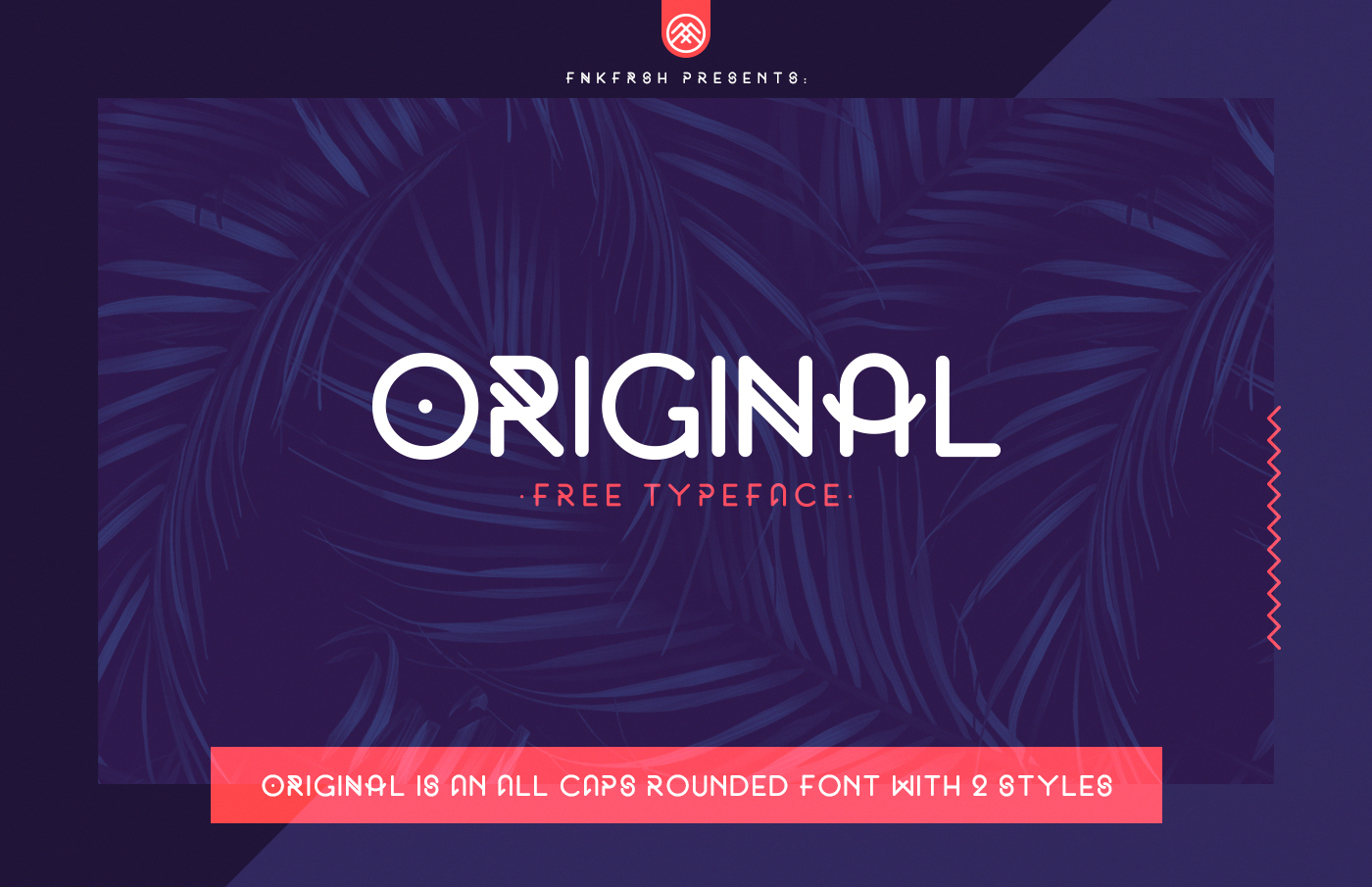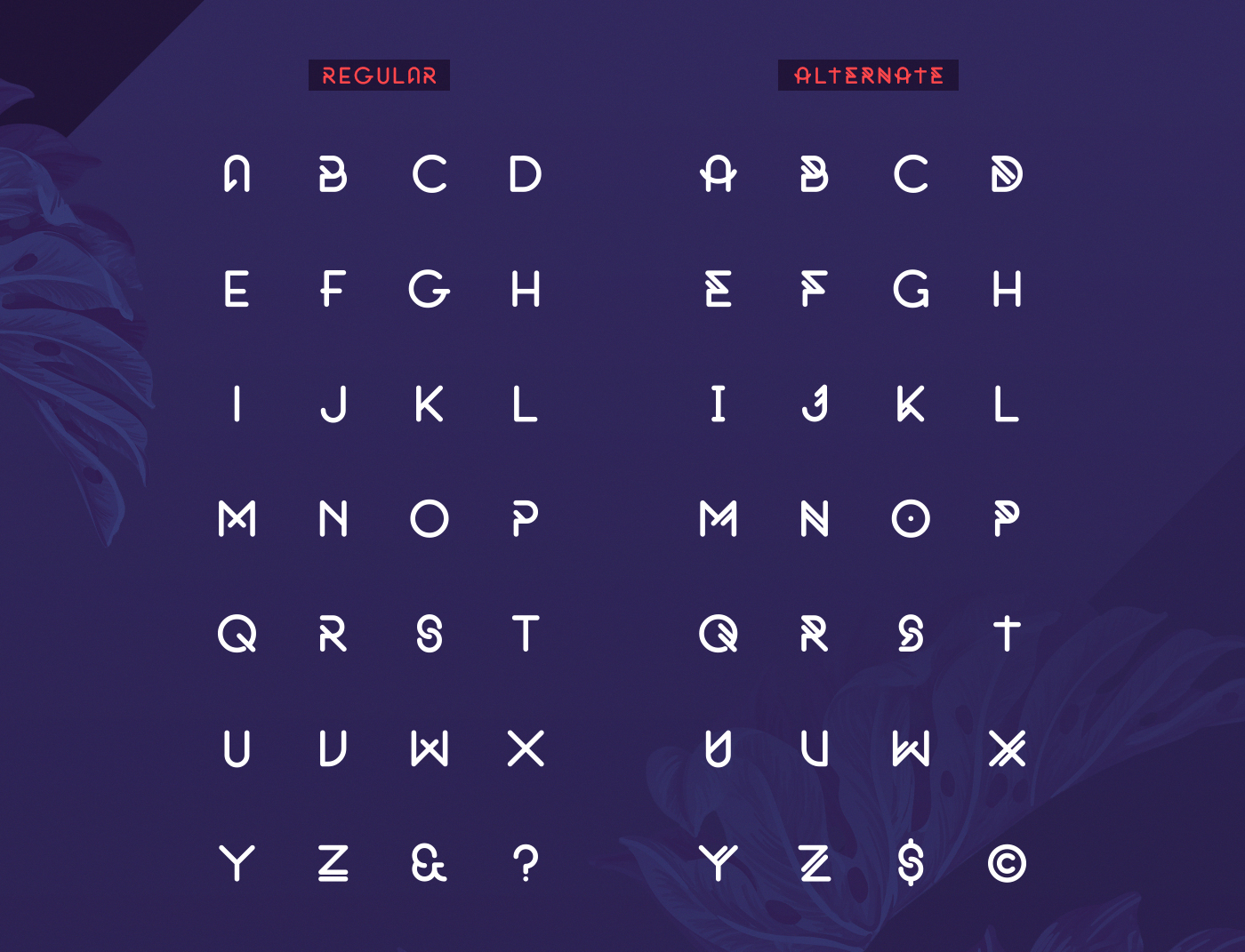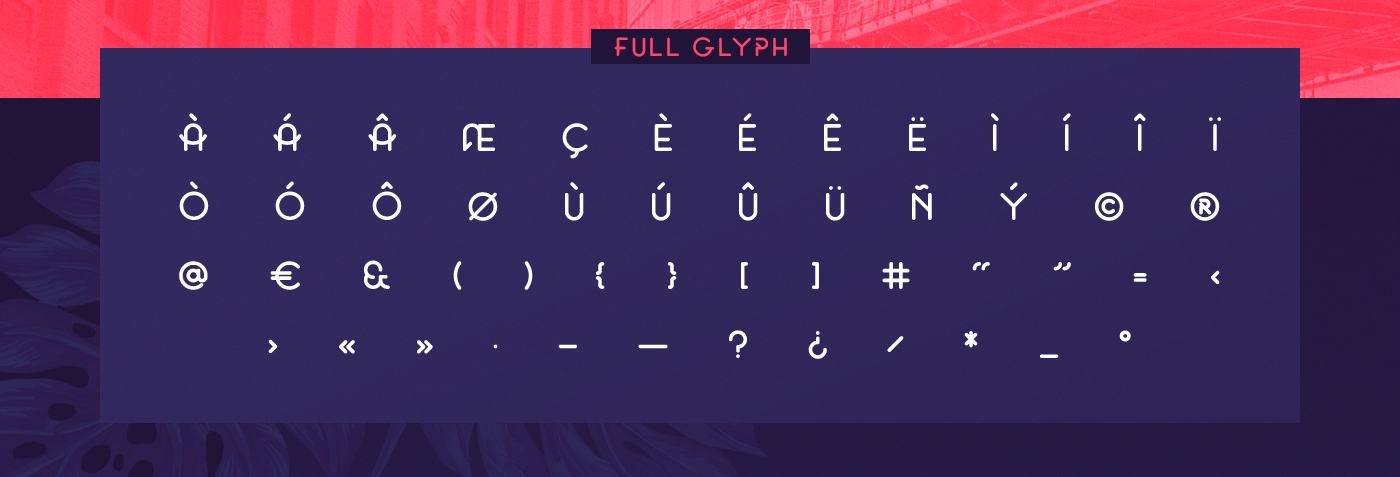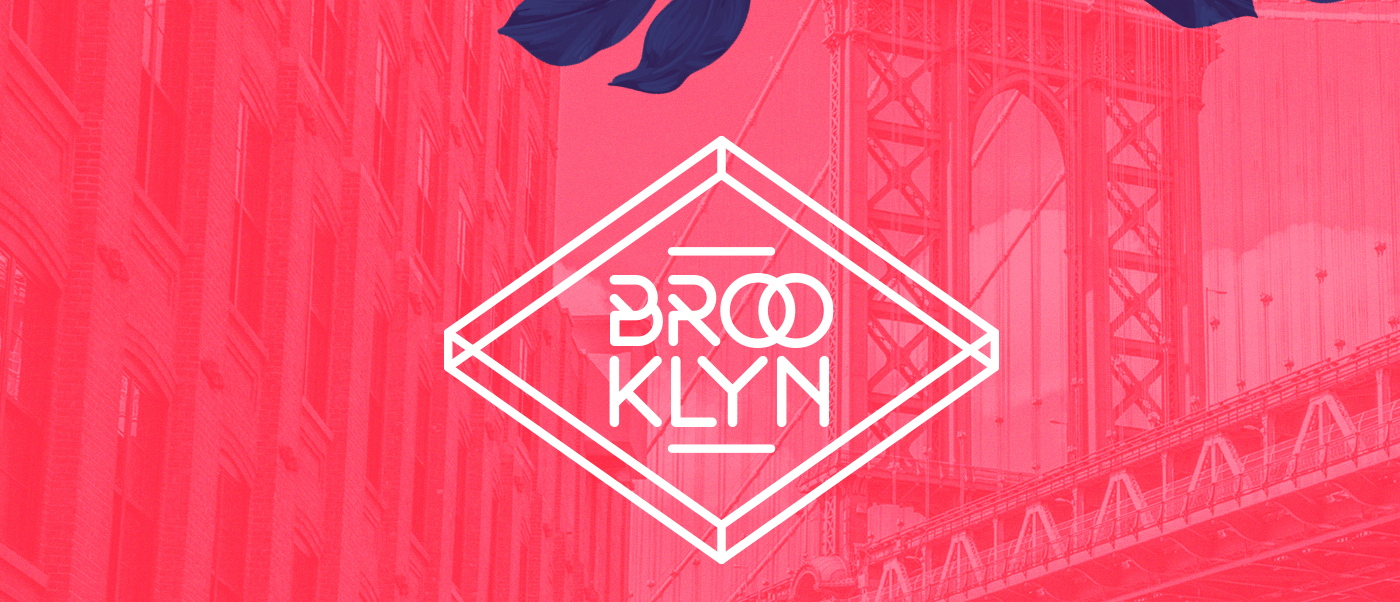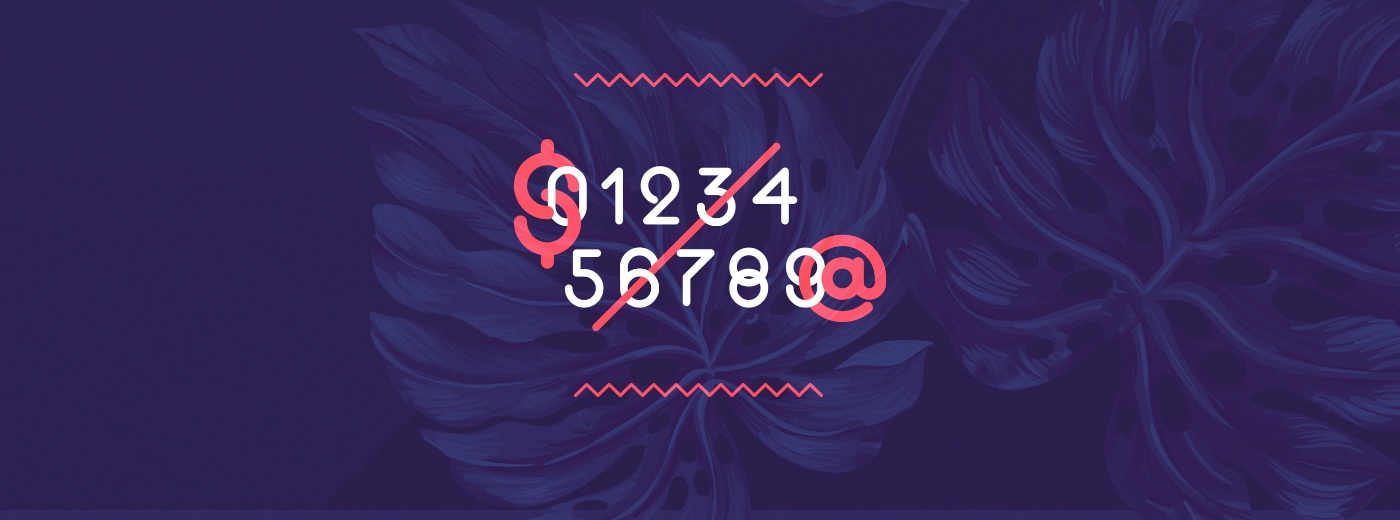
Add something original to your typeface toolbox with this wonderful font designed by Tarek Okbir from Belgium. Original is an all caps rounded font that includes 2 styles: Regular and Alternate.